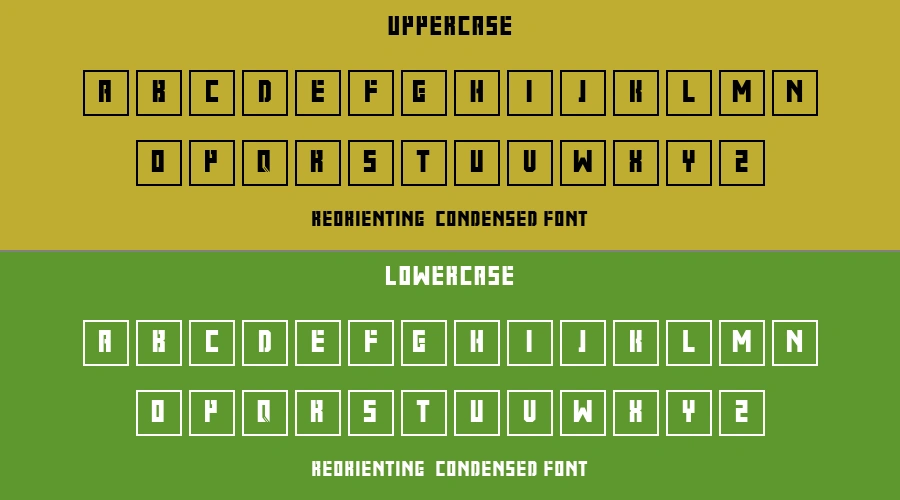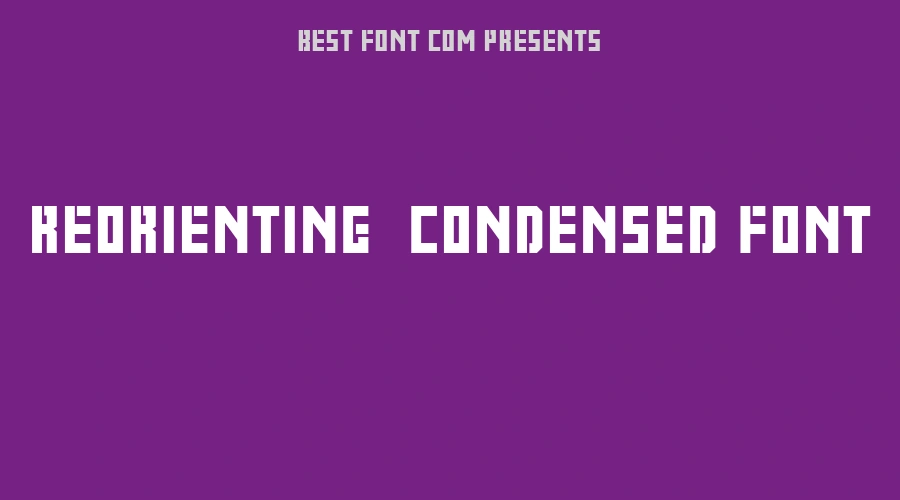
About Reorienting Condensed Font
Reorienting Condensed Font represents a sophisticated approach to type design, balancing balanced tension with emotional resonance. Perfect for poster titles, this font family showcases impressive integrity and market relevance throughout its character set. Designers appreciate its versatility and reliability.
Designers will appreciate nuanced touches including ligatures and inferior figures, adding sophistication to any project. These features become apparent in sidebars, where scanning accuracy matters most. The careful treatment of stroke modulation and industrial acceptance ensures optimal performance.